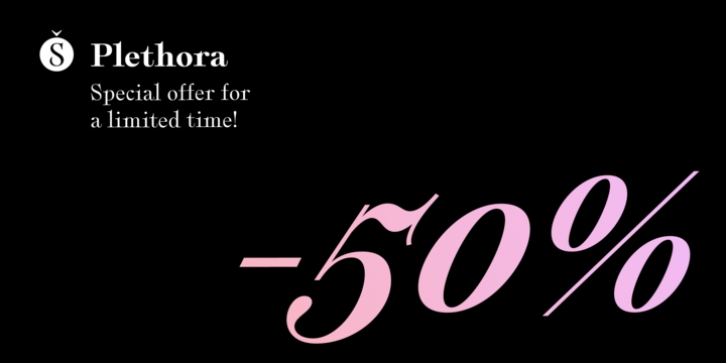
A few years ago I've discovered the work of one of the most prolific typeface designers of the Bruce type Foundry in NYC during late nineteenth century. Browsing Julius Herriet's work I found a very unique kind of ligatures in his patented 'Old Style Ornamented' type design. Some letters were designed with a little top tail that allowed them to connect to each other. After that, I found that he also designed a single italic weight of the same font 7 years later.
Since the beginning of the Opentype days I've been deeply obsessed with exploring different ways to build ligatures, so that lead me up to this point where I felt the need to create "Plethora", this new font inspired by Herriet's work. Extrapolating weights, adding variable technology and playing with additional interconnected letters and alternates. Definitely, Plethora means a large or excessive amount of something, and this font tries to bring back this abundance of details two centuries later. Available in 9 weights, from roman to italic, and also as variable format, "Plethora" supports plenty of latin languages and is a perfect choice for today's design tides.